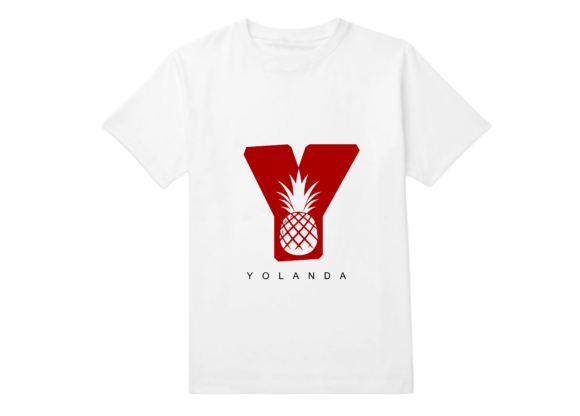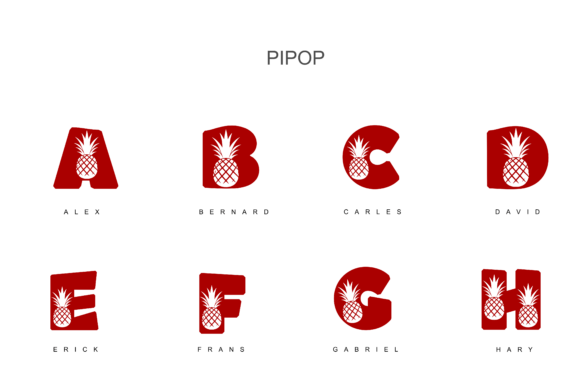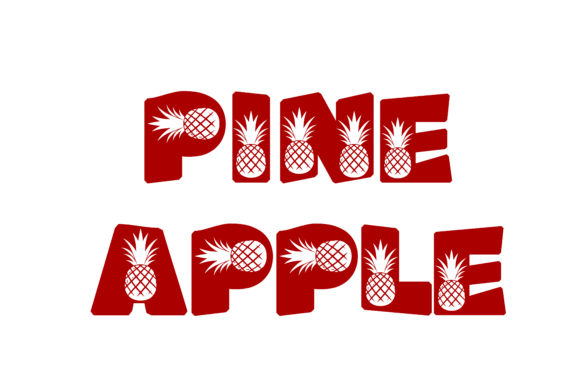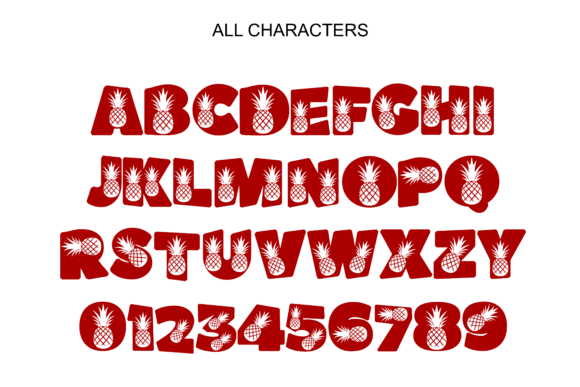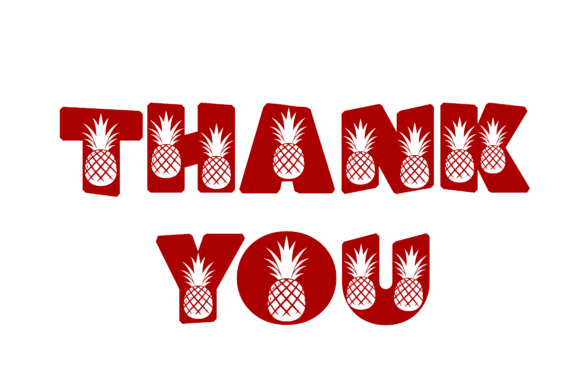
Introduction to Pipop Font
Indulge in the enthralling universe of Pipop, a hypnotic typeface that masterfully captures the vivacity and charm of a child’s creative realm.
Inspired by youthful artistic innovation, Pipop interlaces playful glyphs with dynamic alphabets, transforming ordinary letters into an intriguing visual extravaganza Imbued with astute workmanship and precision, Pipop sets itself as the perfect canvas for myriad artistic ventures.
Key Features of Pipop Font